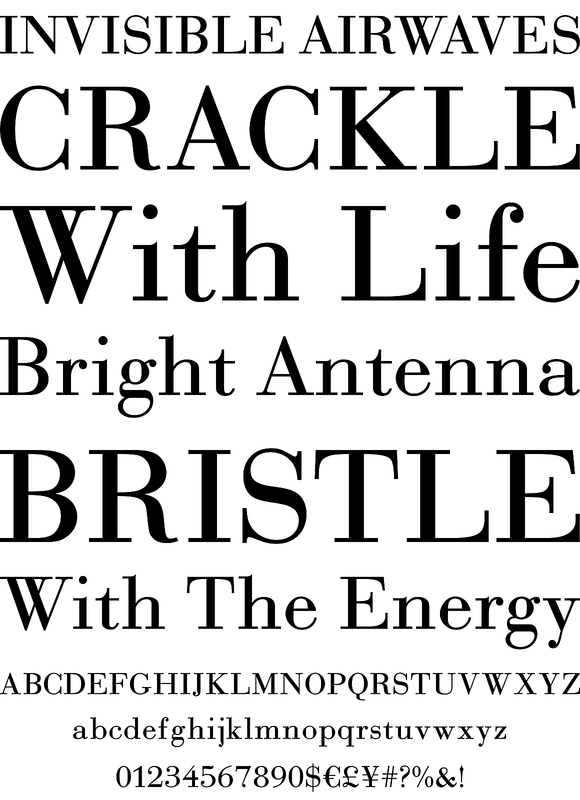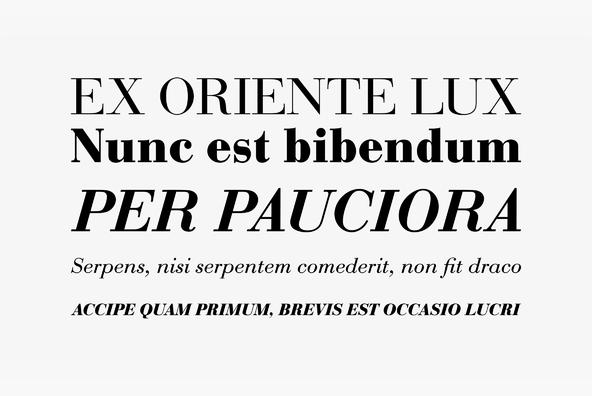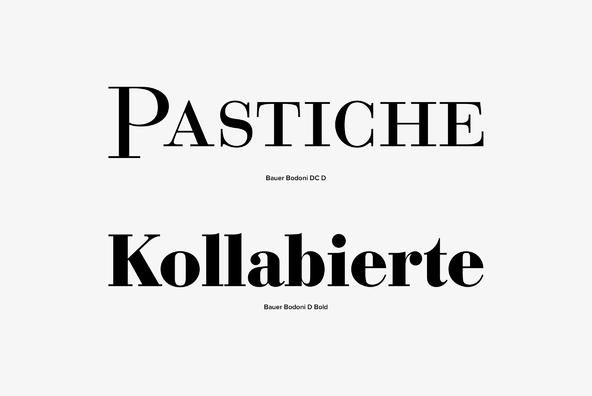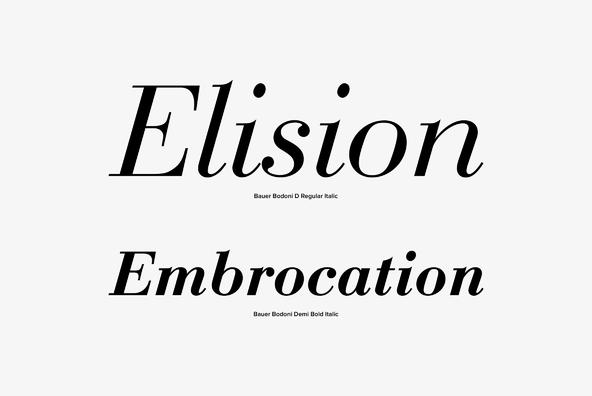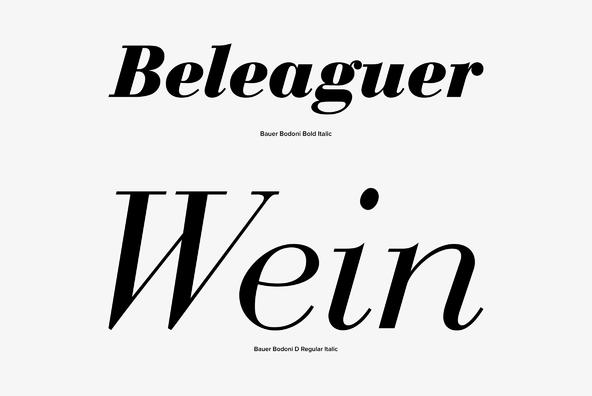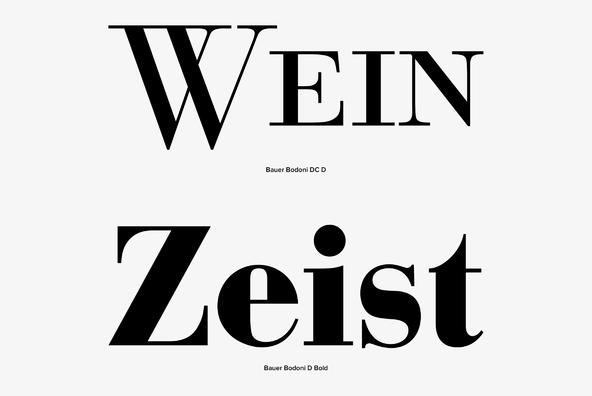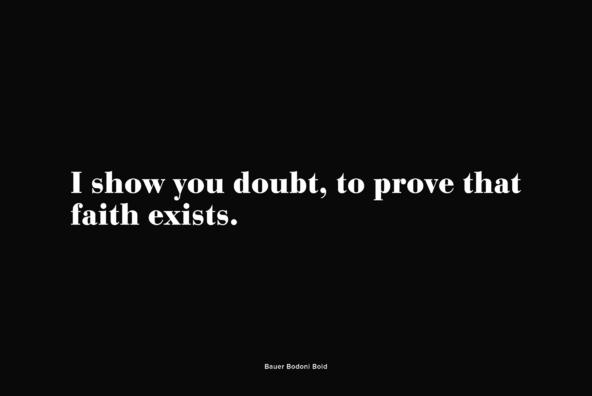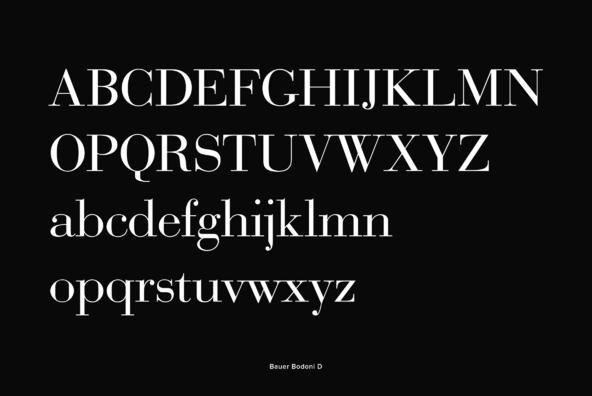
Bauer Bodoni
The Bauer Bodoni is a variation of the Bodoni typeface and was released by Heinrich Jost in the year 1926 for the Bauer Type foundry in Frankfurt, Germany. Heinrich Jost was the artistic director of the foundry from 1923 to 1948. The form of this typeface is closely related to Bodoni, but considered more delicate and graceful than other bodoni variants.